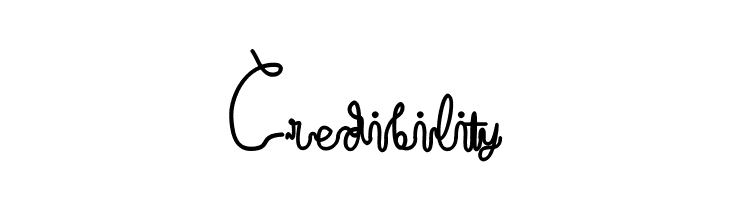
• Creme du Chocolat フォント
A playful, whimsical font with exaggerated serifs and dynamic strokes.
• Creme Espana フォント
An elegant script font with flowing, interconnected letters and high contrast strokes.
• Creme Espana フォント
An elegant script font with flowing, intricate loops and swashes.
• CremeRegular フォント
A bold, playful font with a hand-drawn, slightly condensed style.
• CREMISS Signature Regular フォント
A modern, elegant script font with a fluid, handwritten style.
• CREMISSS フォント
A classic serif font with high contrast and elegant strokes.
• CREMISSS フォント
A refined serif font with high contrast and elegant curves.
• Cremona フォント
A modern sans-serif font with clean lines and excellent readability.
• Cremona フォント
A modern sans-serif font with clean lines and balanced proportions.
• CRENZO フォント
A futuristic, geometric font with bold, angular characters.